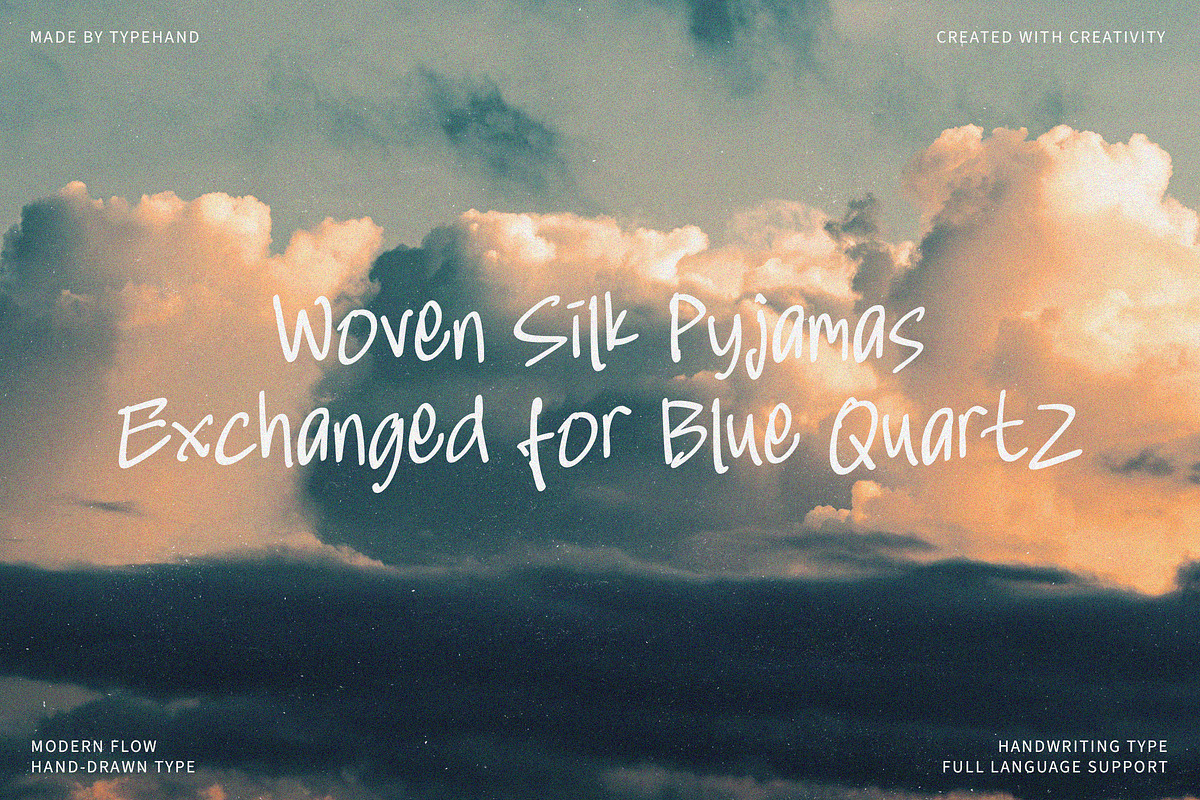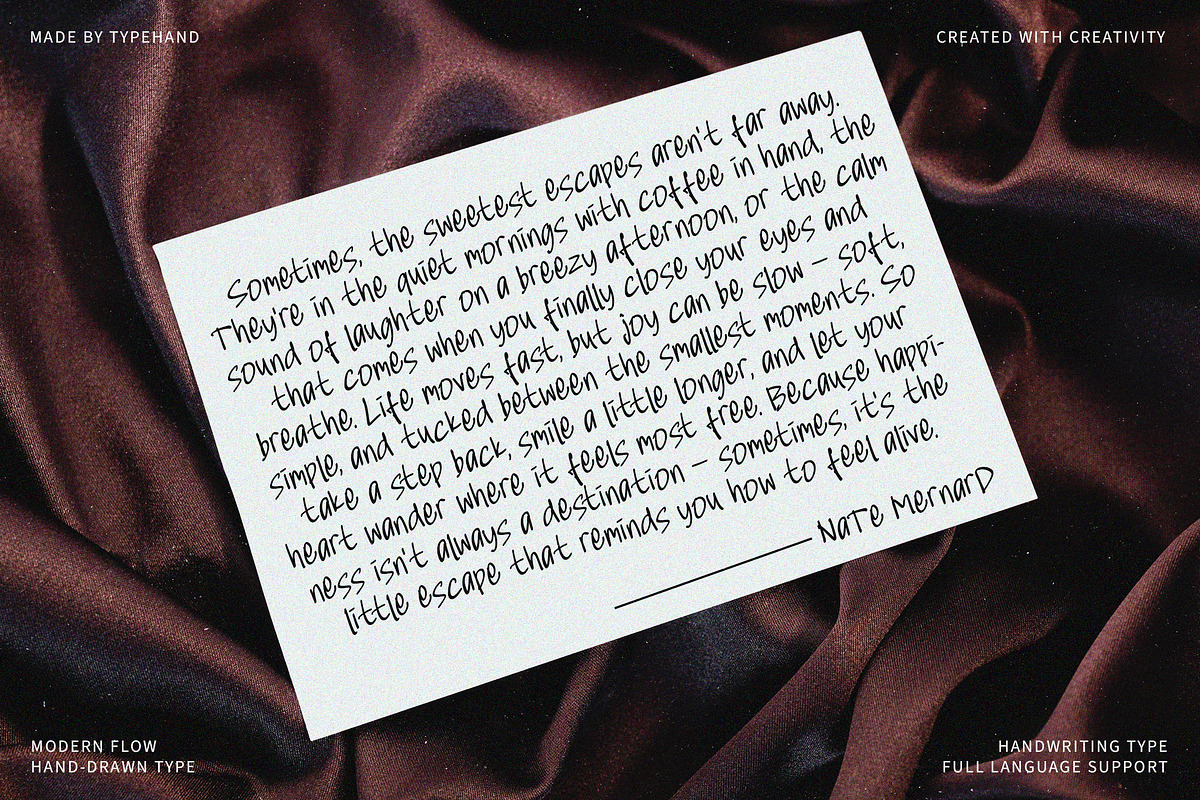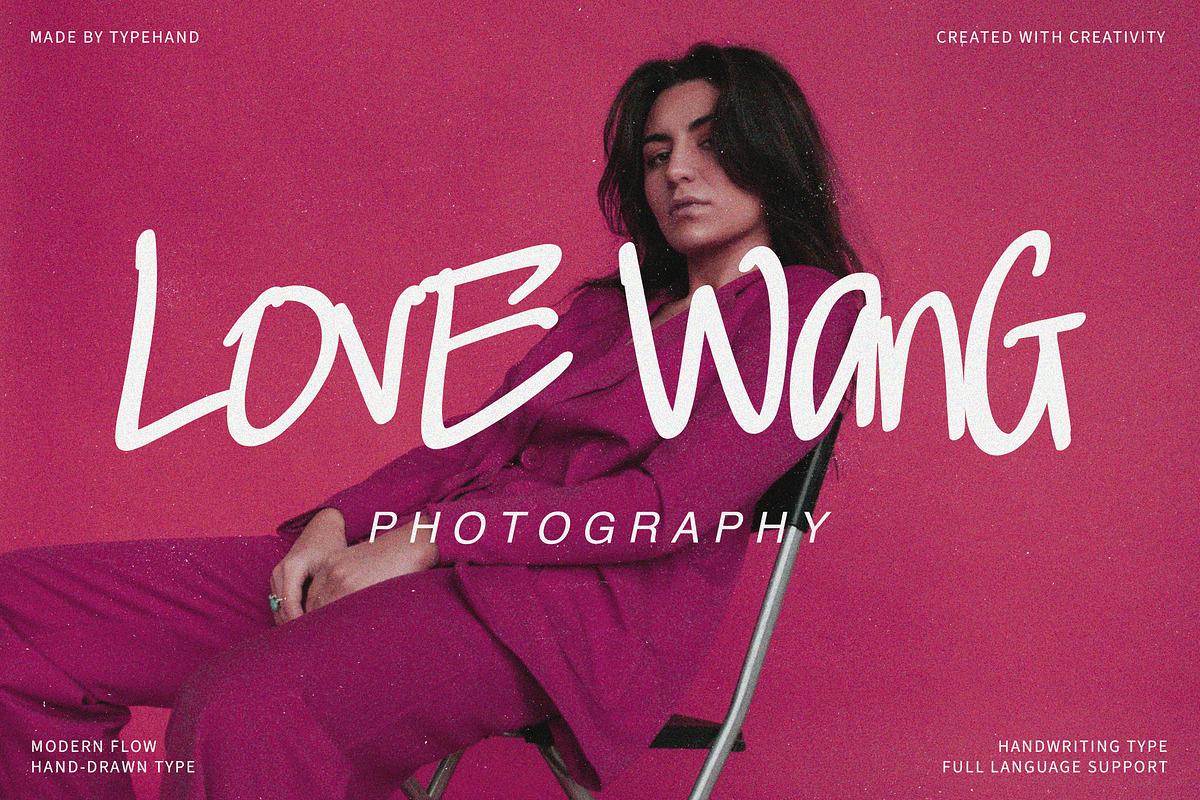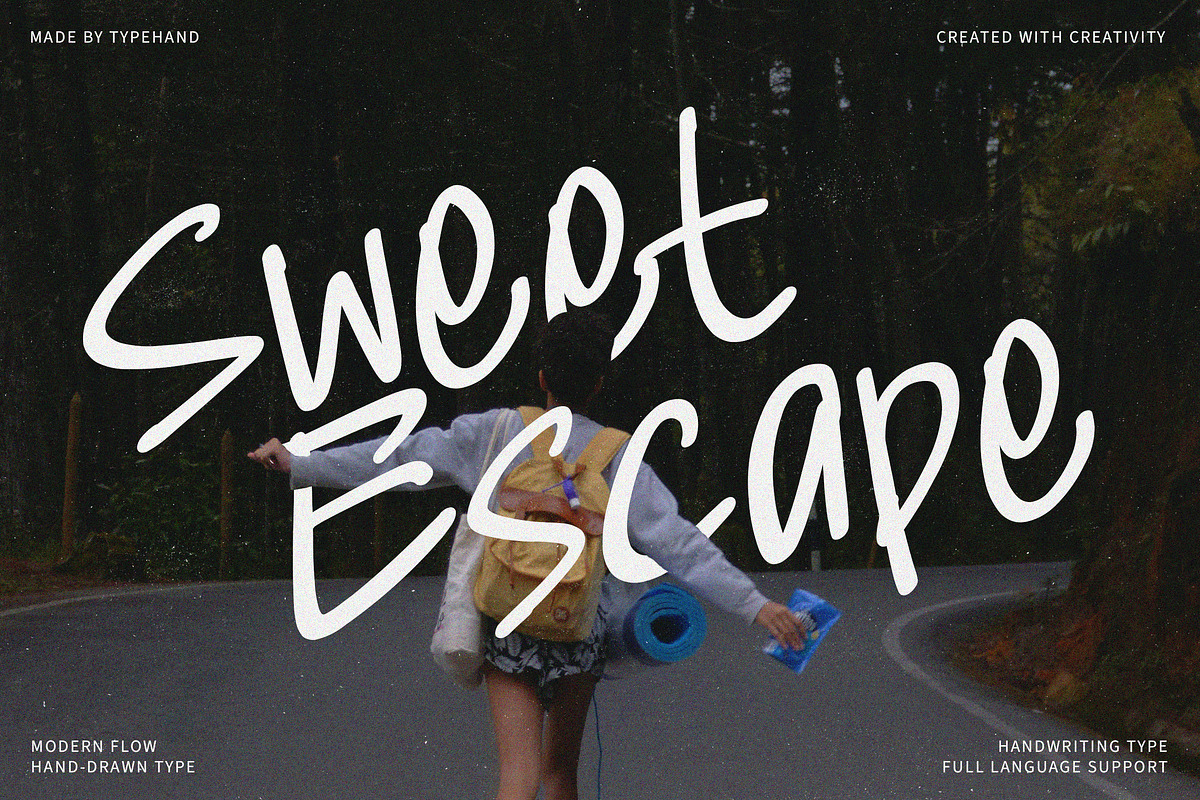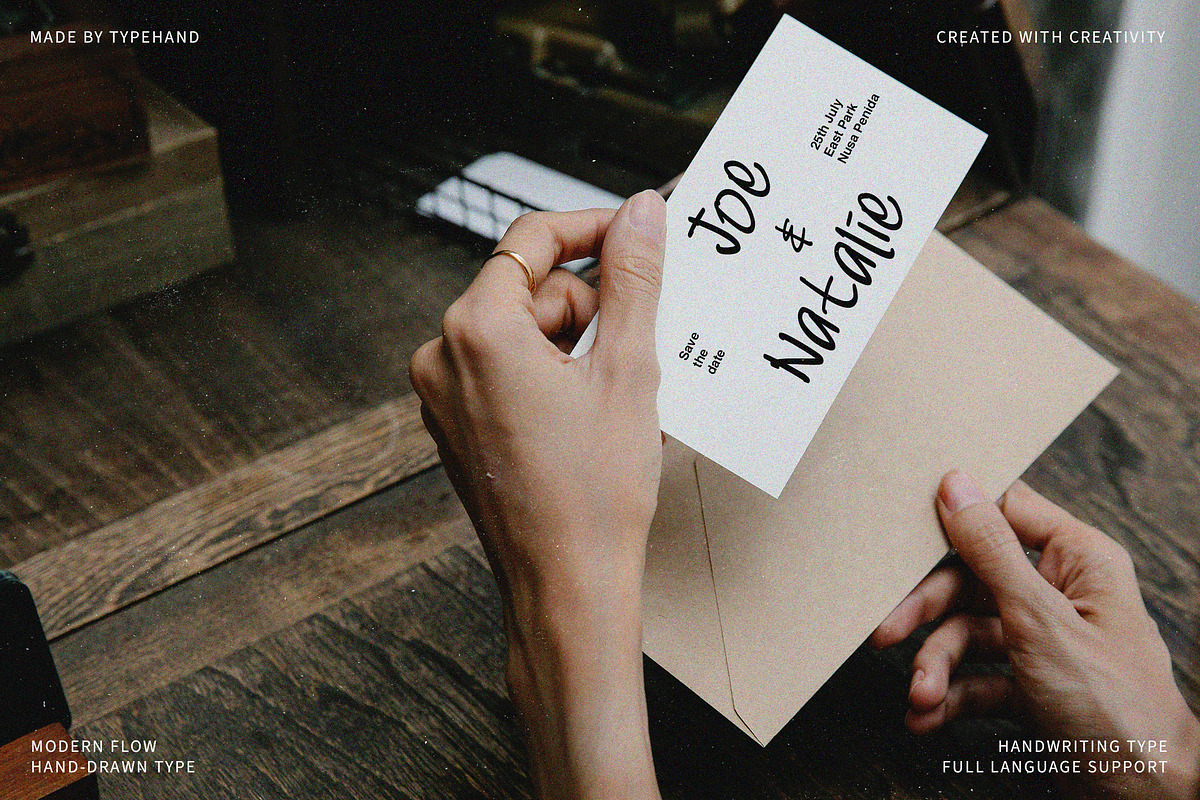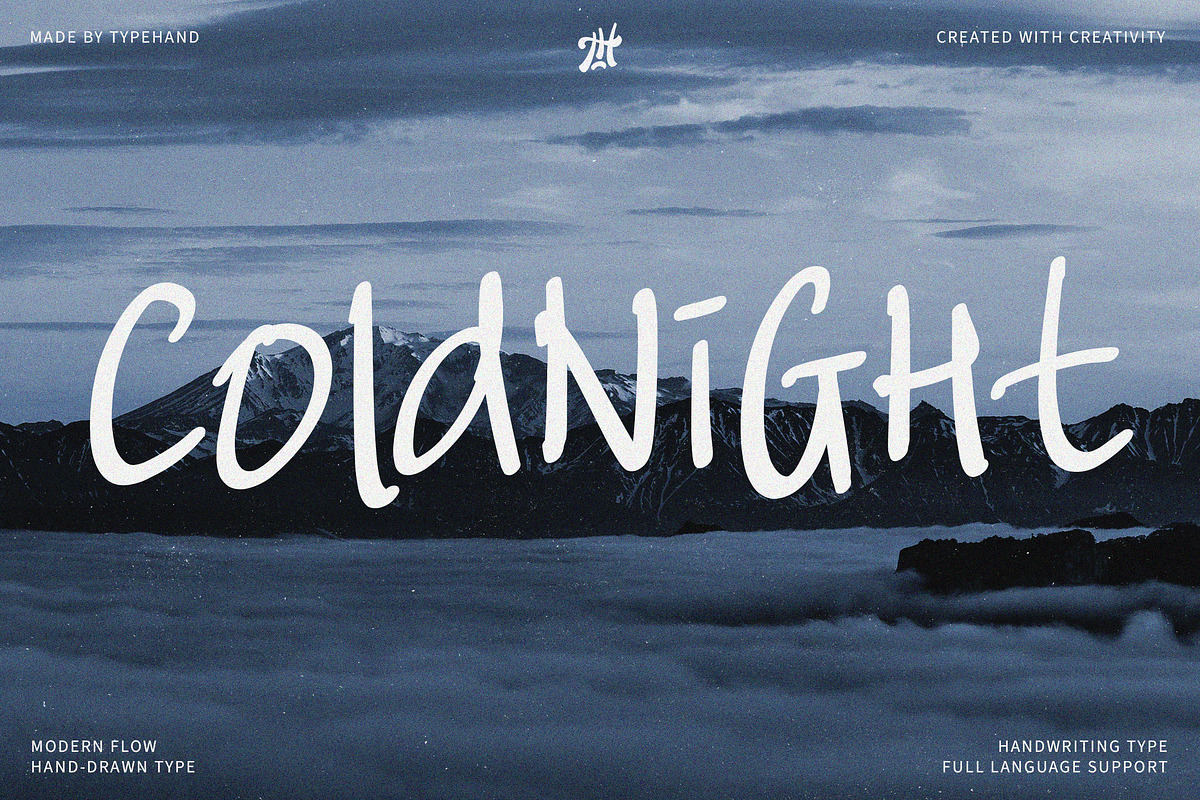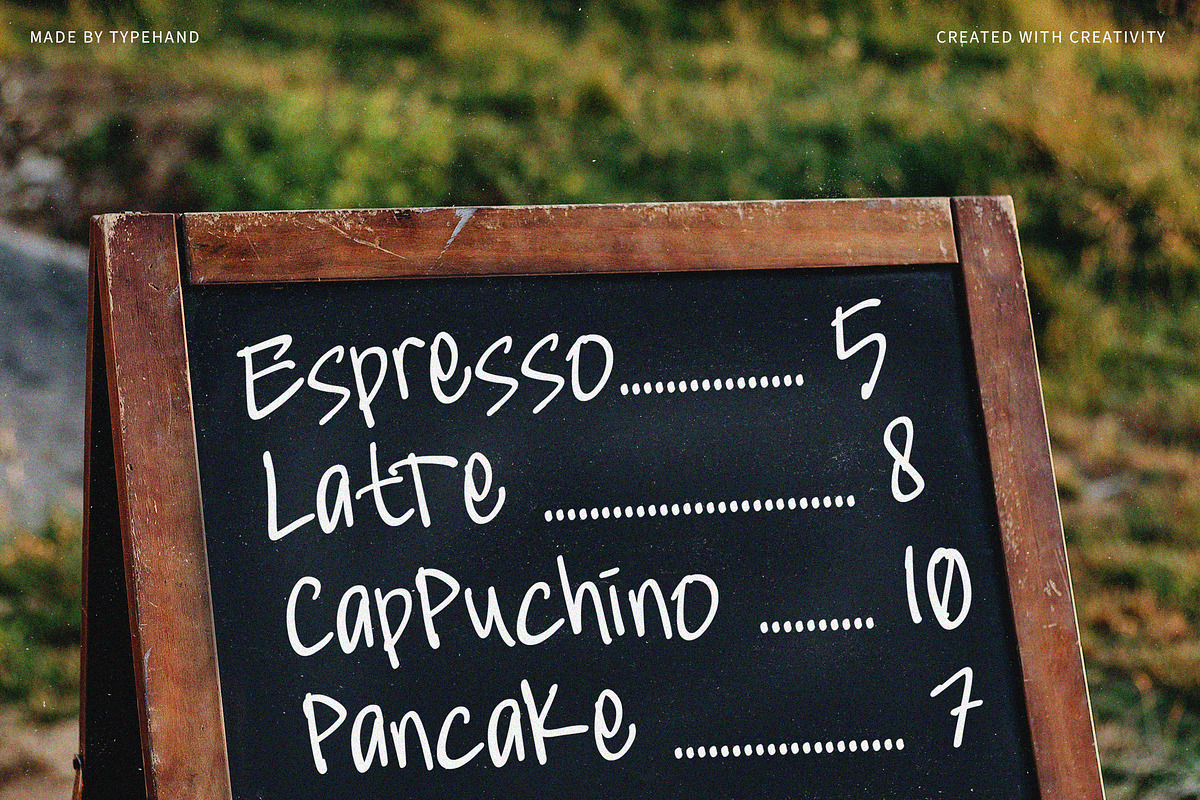
Coldnight – Playful Fancy Display
Coldnight – Where Fun Meets Fancy in Every Letter
Coldnight is a display font designed to bring fun and personality to your projects. With a fancy handwritten style and playful impression, it adds uniqueness and charm to any design.
Best used for logos, product mockups, quotes, menus, posters, social media graphics, and invitations, Coldnight makes your work stand out. It comes with ligatures, stylistic alternates, and full multilingual support, ensuring flexibility for global audiences.
Whether you’re creating for branding, packaging, fashion, or lifestyle projects, Coldnight is your go-to font for playful yet stylish typography.